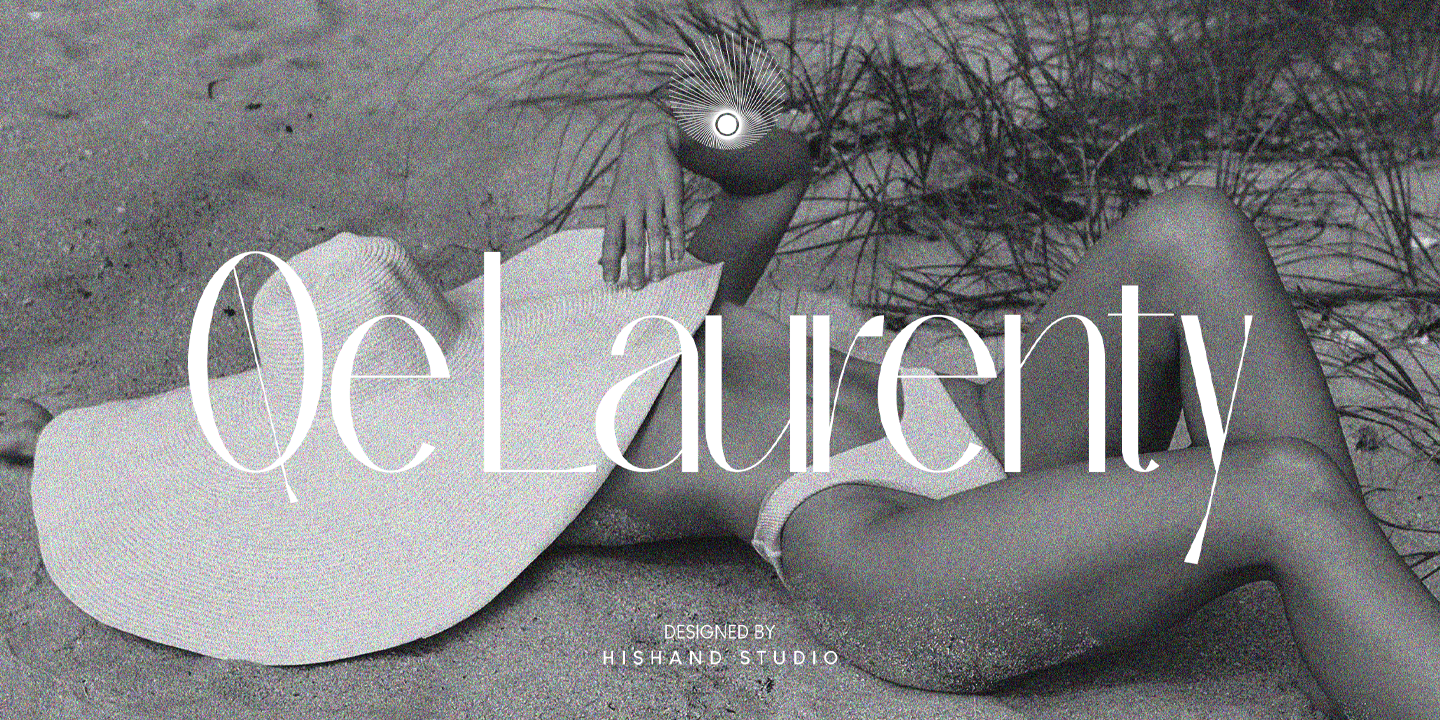
Qe Laurenty Font is ideal for sophisticated design projects including luxury fashion magazines, high-end beauty campaigns, premium lifestyle branding, elegant wedding invitations, upscale cosmetics packaging, refined art gallery materials, exclusive boutique signage, sophisticated editorial layouts, prestigious award ceremonies, and cultured brand communications that demand exquisite typographic refinement and timeless elegance.
What makes Qe Laurenty Font so exciting is its masterful combination of classical typography traditions with contemporary luxury aesthetics that creates an aura of sophistication and exclusivity while maintaining impeccable legibility. This distinguished typeface features graceful letterforms, refined proportions, and elegant design details that convey prestige and cultural refinement, making it perfect for brands targeting sophisticated audiences who appreciate artistic excellence and timeless beauty.
Qe Laurenty Font typically comes in comprehensive font families including regular, italic, bold, bold italic, light, and medium weights, along with stylistic alternates, elegant swashes, decorative capitals, and premium OpenType features, providing designers with extensive tools to create luxurious layouts and establish sophisticated brand hierarchies.
This exquisite Qe Laurenty Font Free Download represents the pinnacle of luxury typography design, offering creative professionals an exceptional foundation for projects requiring cultural sophistication and artistic excellence. Whether you're developing high-fashion branding, luxury editorial content, or exclusive cultural materials, this font delivers unmatched elegance while ensuring superior functionality. The refined character details and versatile styling options make it particularly valuable for luxury brands, cultural institutions, and premium services seeking to communicate sophistication, artistic sensibility, and cultural refinement through typography that resonates with discerning audiences and creates lasting impressions of quality and exclusivity.